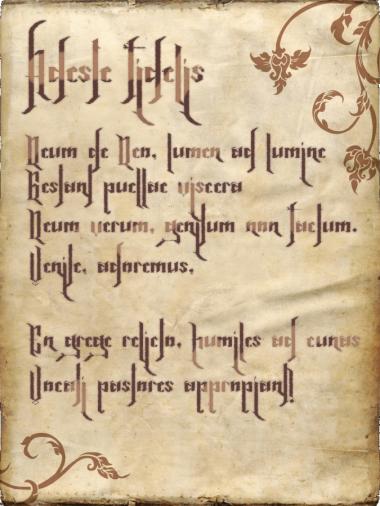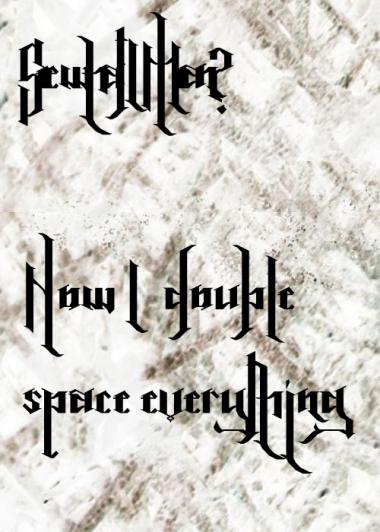
THIS is a great first one!
I think H needs help; U is a little strange and "y" seems to be ill :)
Some tweaks here and there will be necessary, but this baby is absolutely worth the effort, i think
This... is your first? 10/10!!!!!!!!!!!!
Wow! Gorgeous! Most people can't even make a suitable pixel font as their first. Great work!
10/10 and fave
What a beauty!
@kix: yeah, U and y. that's right...gonna look into these. thanks for the input.
Awesome work! IMHO, I think it needs a little more space between the words.
What a strong entry!
Final tweaks here and there. Now I consider this thing done^^ ...on to new projects!
Great. Just wonderful. 10/10 Great serifs and quite legible.
Very good...death metalesque!
Yes, that's what I thought. I'm waiting to see the first metal band using this typeface for their band logo.
Great work! 10/10
Very nice, I find however that the font size has to be quite large for it to be legible. Otherwise, Ggreat work!
beautiful
thank u for your great imagination,use this font for Chi-Rho design,actually look for font used in STING song album TEN SUMMONER'S Tale
This. Is. AWESOME. I used it for my band logo for my first album. I hope you don't mind!
For some ungodly reason, this won't work properly for me. There's almost no spacing between letters. Can anyone help me? This font is amazing and I would love to use it.
@axixex Sorry dude, I have no idea. The spacing is intentionally pretty narrow, but this? Hmm, not a clue.
@asixex: What program are you using to create the image above?
I use Paint Shop Pro and it has the facility to alter kerning ... your sample looks like it is negatively kerned
@K_a_M_i It's ok dude. Just thought you might have any solution.
@p2pnut I use Adobe Photoshop CS4. I've used other fonts from FS and everything else works fine.
I still haven't gotten MechanoFeather to properly work, but if I space between letters, here's what I can do. :) By the way, this is a wallpaper I made for my band. It's got the band name in Abaddon font (Bullet For My Valentine use the same font) and lyrics in MechanoFeather.
Very, Very impressive, especially for your first font.
Thanks for the font. I draw a poster for my friend called "Rhino and Butterflies" and i like the font style in there. check out. I hope you enjoy.
nusssss show!!! mt loko!!!
cadas banget, great work !! awesome
swagg 10... pow
well, this is a matter of opinion, but i luv it!
not only is it great, it's also original...some goth and/or blackletter type fonts look just like a thousand others.
i hope you'll continue to play around with fontstruct. you've got a good eye and you're obviously creative.
First one? Outstanding font!
THI-this..... this is your FIRST font!? Serious respect!